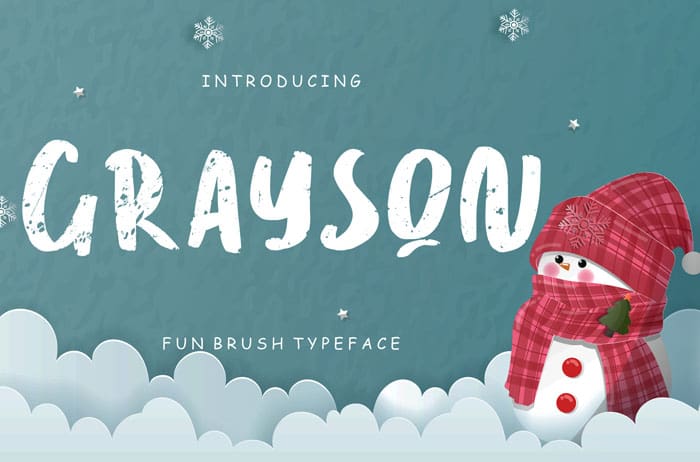
Grayson Display Font
Grayson is a fun Display Font for children and kindergarten and christmas occasions. Grayson is perfect for logo, product packaging, label, photography, watermark, stationery designs and more. Thanks to Creatype Studio for sharing this font! Take a look at this portfolio for more of his stunning fonts.